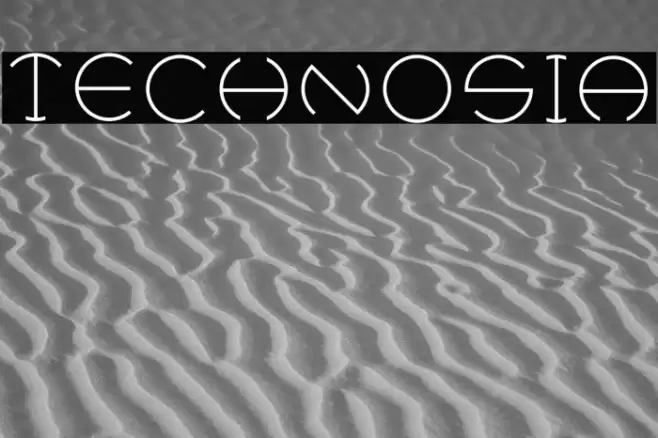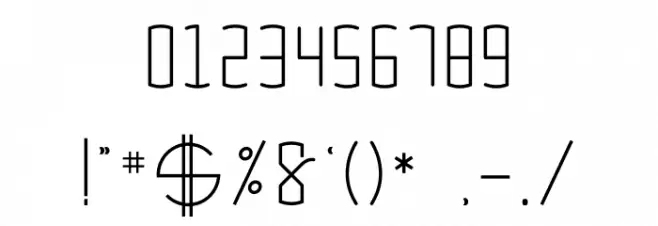
Technosia Font
Technosia Description
This font features a futuristic and geometric design, characterized by its clean lines and unique shapes. The uppercase letters are crafted with a modern aesthetic, incorporating circular and angular elements that give it a distinct, tech-inspired look. The lowercase letters maintain a consistent style, offering a seamless blend with the uppercase. Numbers and special characters follow the same design principles, ensuring uniformity across all glyphs. The font's minimalistic approach and precise construction make it ideal for projects that require a contemporary and innovative feel.
A futuristic, geometric font with clean lines and tech-inspired shapes from Regular fonts.
- Overall Style: Futuristic